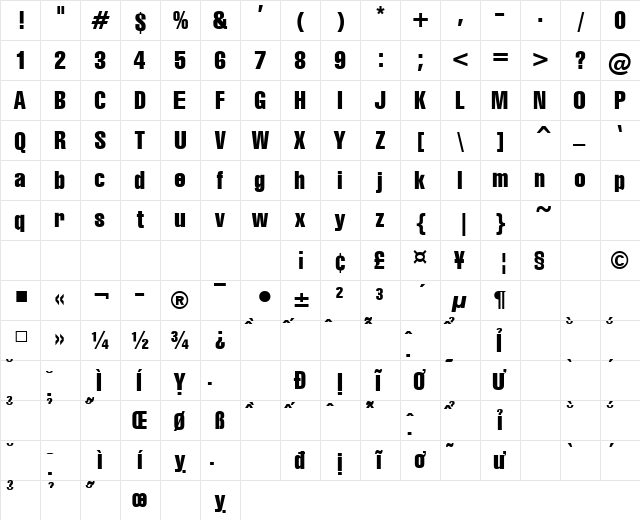
VNI-Swiss-Condense Bold
Design Context for VNI-Swiss-Condense Typeface
VNI-Swiss-Condense is a composed and adaptable typeface that performs quietly and consistently across a wide range of design contexts. The heavy weight commands attention and anchors typographic hierarchies. Its narrow stance lets it pack a punch even in space-constrained designs.